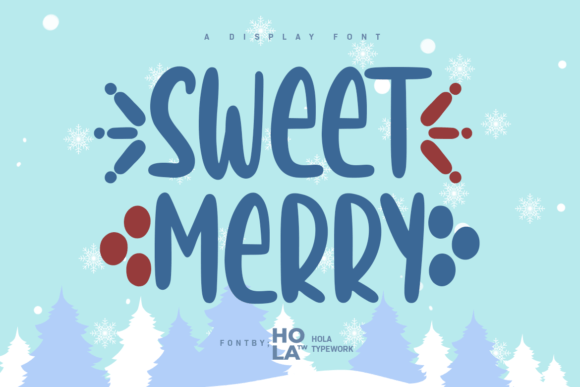
Sweet Merry: A Versatile Display Font for Creative Workflows
Choosing the right font can make a significant difference in the visual appeal and effectiveness of your design. Sweet Merry is a display font that stands out with its soft, rounded shapes and approachable character. It blends charm and clarity, making it ideal for a variety of creative applications. Whether you're working on branding materials, product packaging, or digital content, understanding how to use Sweet Merry effectively can elevate your projects and streamline your workflow.
What Is Sweet Merry?
Sweet Merry is a cute and friendly display font designed to bring warmth and personality to any project. Its playful yet readable style makes it suitable for both print and digital media. Unlike more formal typefaces, Sweet Merry is crafted to evoke a sense of joy and accessibility, which is why it works well in contexts like social media posts, invitations, and promotional materials.
This font is not meant for body text due to its decorative nature but excels when used as a headline, title, or accent element. It fits into the broader process of graphic design by offering a unique typographic voice that can enhance brand identity or set the tone for marketing campaigns.
Integrating Sweet Merry Into Your Workflow
Font selection is often an early step in the design process, and Sweet Merry can be introduced at various stages depending on the project. Hereās how it might fit into different workflows:
- Before a project: When brainstorming the visual direction of a new campaign or brand, adding Sweet Merry to your font library gives you access to a versatile option that aligns with warm, inviting aesthetics.
- During the design phase: Use Sweet Merry for headlines, logos, or key elements that need to stand out while maintaining a friendly vibe. It pairs especially well with clean sans-serif or minimalist serif fonts to balance playfulness with professionalism.
- After finalizing a layout: If your design requires a last-minute touch, Sweet Merry can add that extra layer of charm without disrupting the overall composition.
How Sweet Merry Complements Other Tools and Resources
Practical Applications of Sweet Merry
Sweet Merry's versatility means it can be applied across multiple industries and purposes. Here are some common use cases where this font shines:
Product Packaging and Branding Projects
For small business owners and entrepreneurs launching new products, Sweet Merry offers a way to create packaging that feels both professional and personable. Itās particularly effective for food-related brands, childrenās products, or lifestyle items that benefit from a welcoming visual identity.
Use Sweet Merry for product names, taglines, or call-to-action phrases. Pair it with a bold background color or subtle illustration to draw attention and reinforce brand personality. Consider using it alongside a secondary font for body copy to ensure readability and maintain a cohesive look.
Magazine Covers and Editorial Design
In editorial design, first impressions matter. Sweet Merry adds a fresh and engaging touch to magazine covers, especially those targeting younger audiences or niche markets. Its legibility at larger sizes ensures that titles remain clear and eye-catching.
When designing a cover, start by placing Sweet Merry in the headline. Test different weights if availableāsome versions of display fonts offer variations to suit different needs. Balance the typography with imagery and white space to avoid clutter and guide the viewerās focus effectively.
Social Media and Marketing Campaigns
Marketers and bloggers often rely on strong visual elements to capture audience attention. Sweet Merry can be used to craft catchy captions, hashtags, or promotional banners that reflect a brand's tone and values.
For example, when creating Instagram stories or Facebook ads, use Sweet Merry for key messages or quotes. Combine it with vibrant colors and high-quality photos to create a dynamic and memorable post. Remember to test how the font appears on mobile screens, as some display fonts may lose clarity at smaller sizes.
Wedding Invitations and Event Materials
Weddings and special events often require fonts that convey warmth and elegance. Sweet Merry brings a gentle, romantic feel to invitations, thank-you cards, and signage. Its soft curves and balanced spacing make it easy to read while still feeling hand-drawn and personal.
Remember, the goal of typography is to serve the message. Choose Sweet Merry when you want to add a touch of warmth and personality without sacrificing clarity. With thoughtful planning and implementation, it can become a staple in your design process, helping you produce more impactful and memorable work.